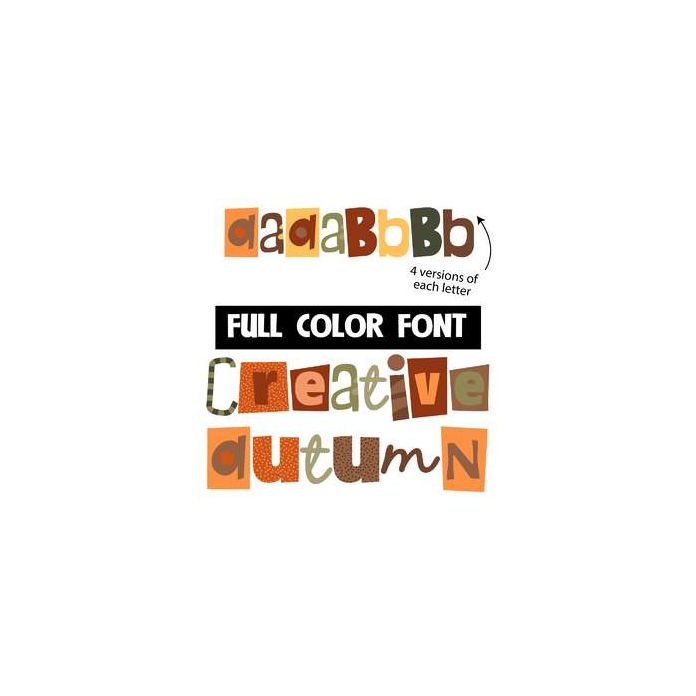
This full-color font features a fall-color palette and a second upper and lowercase you can access through your system's character map to give you more color choices for lettering. This font works best for titles, displays, posters and more. Please note color fonts will show as black in non compatible programs. This font type is compatible with Silhouette Studio.